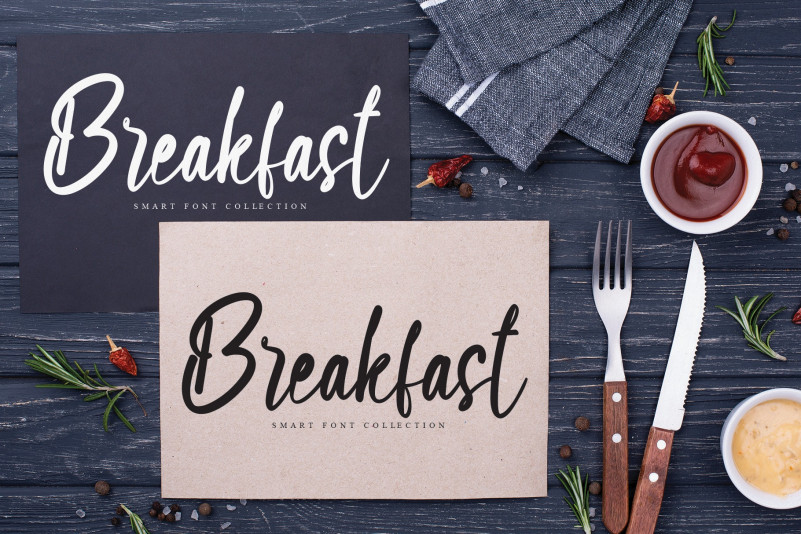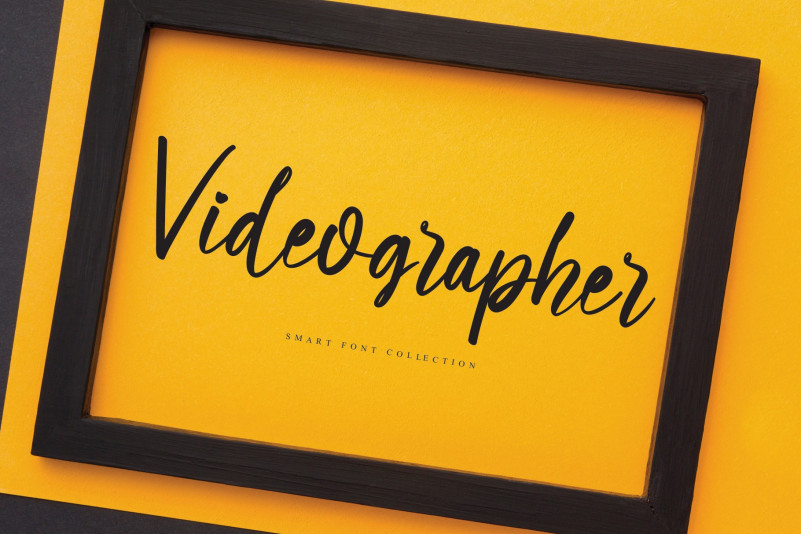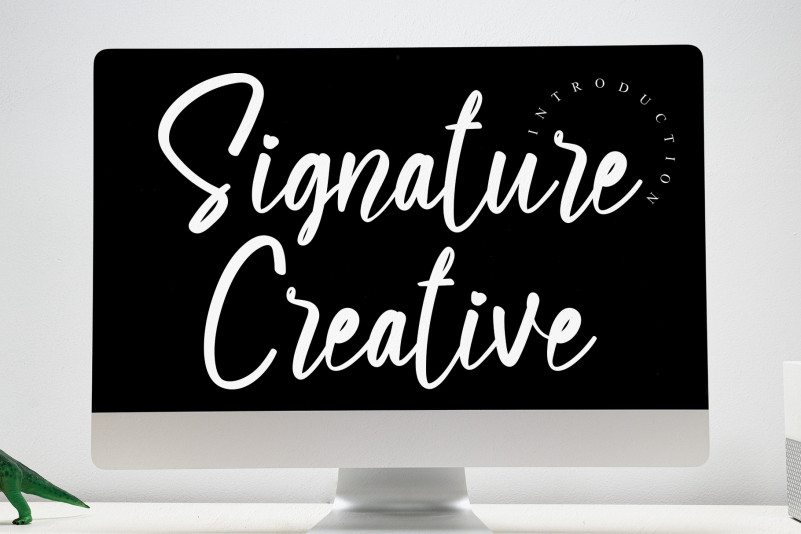
Maseiye Calligraphy Font
Introduce Maseiye Font- is a script calligraphy font, it has a lot of stylistic sets, suitable for logotype designs, crafts, and many more.
For those who need a classic touch to their designs, this font is perfect.
This font was included with multilingual support, stylistic sets, contextual alternate, and many more.